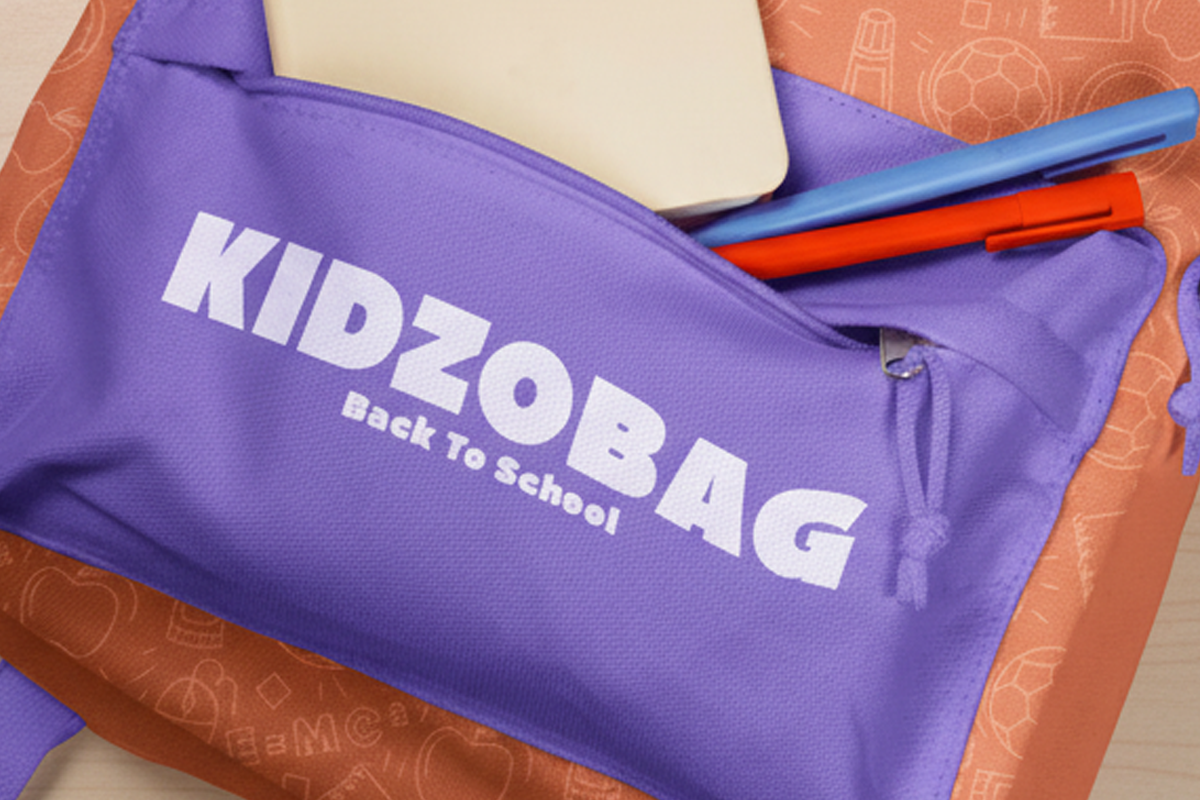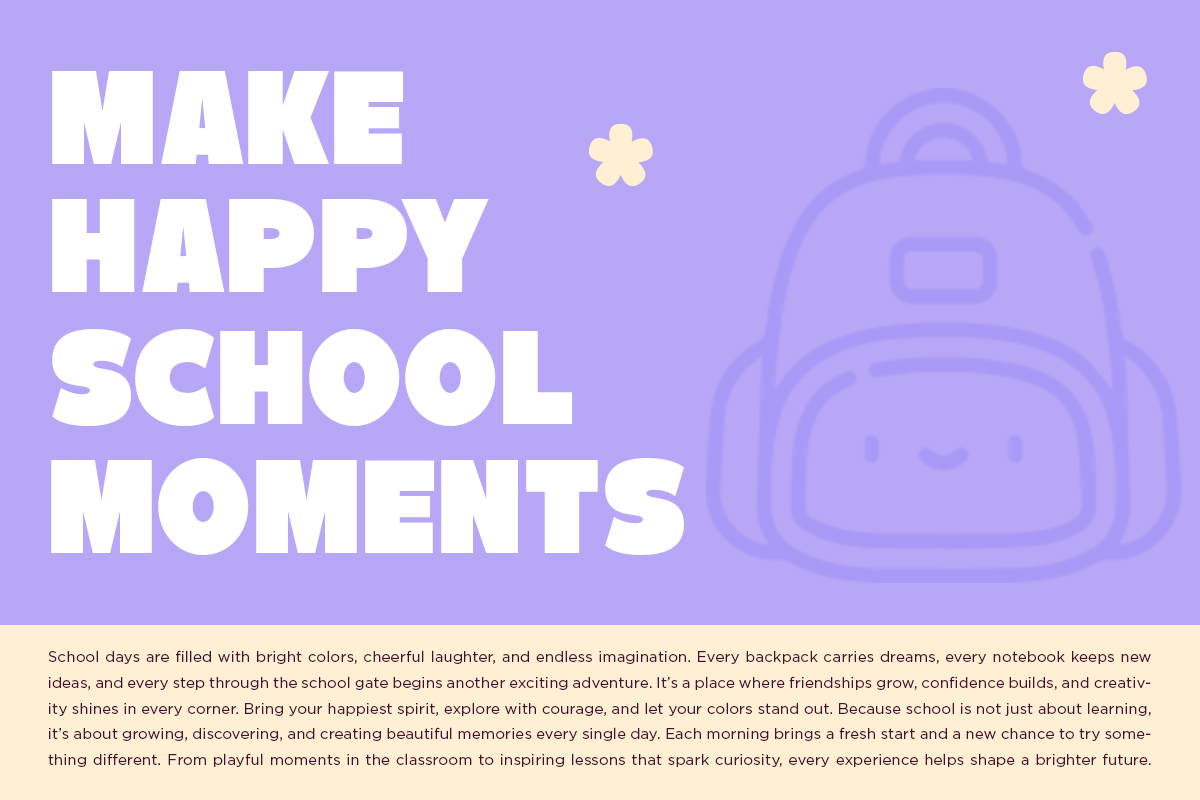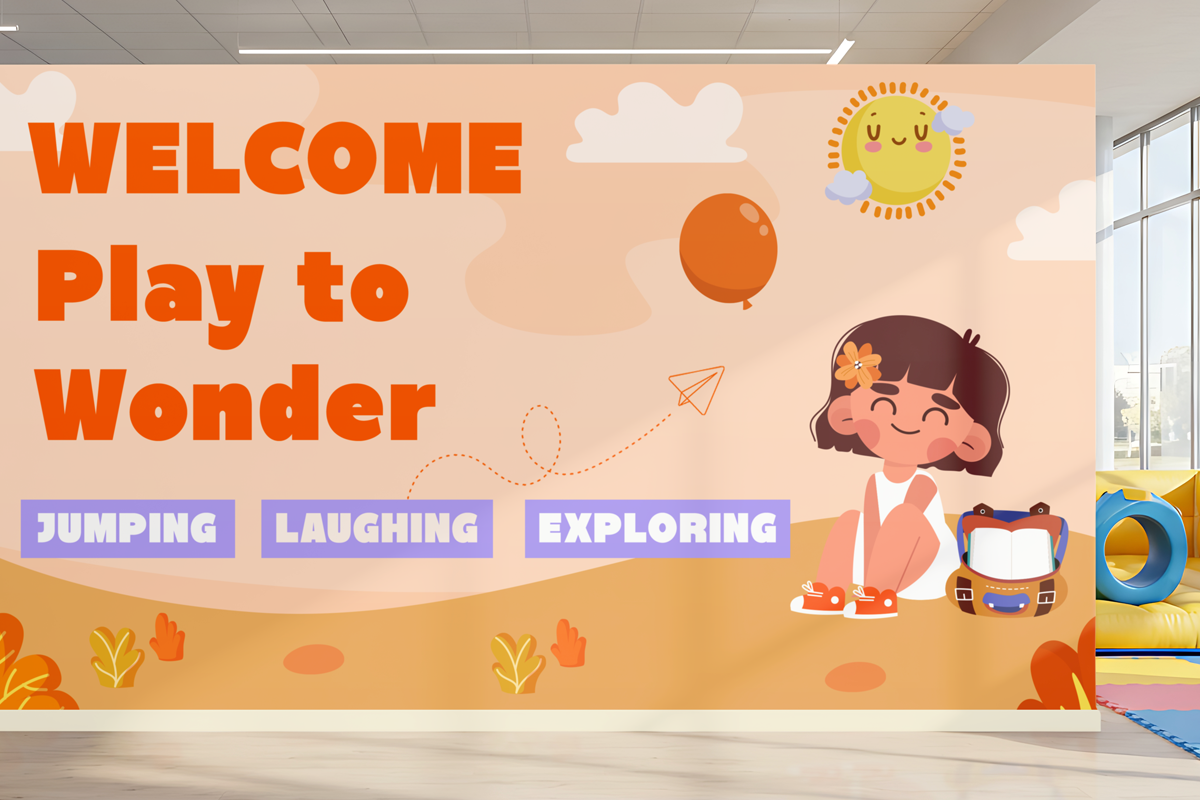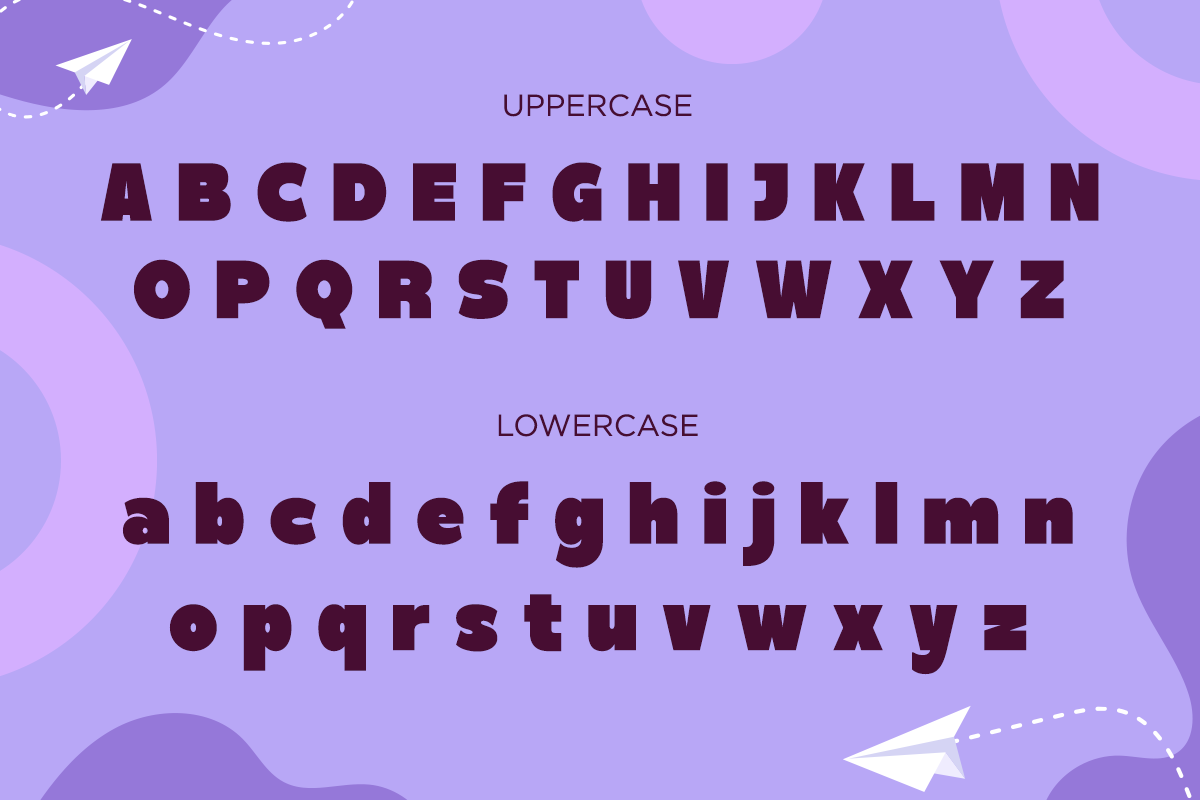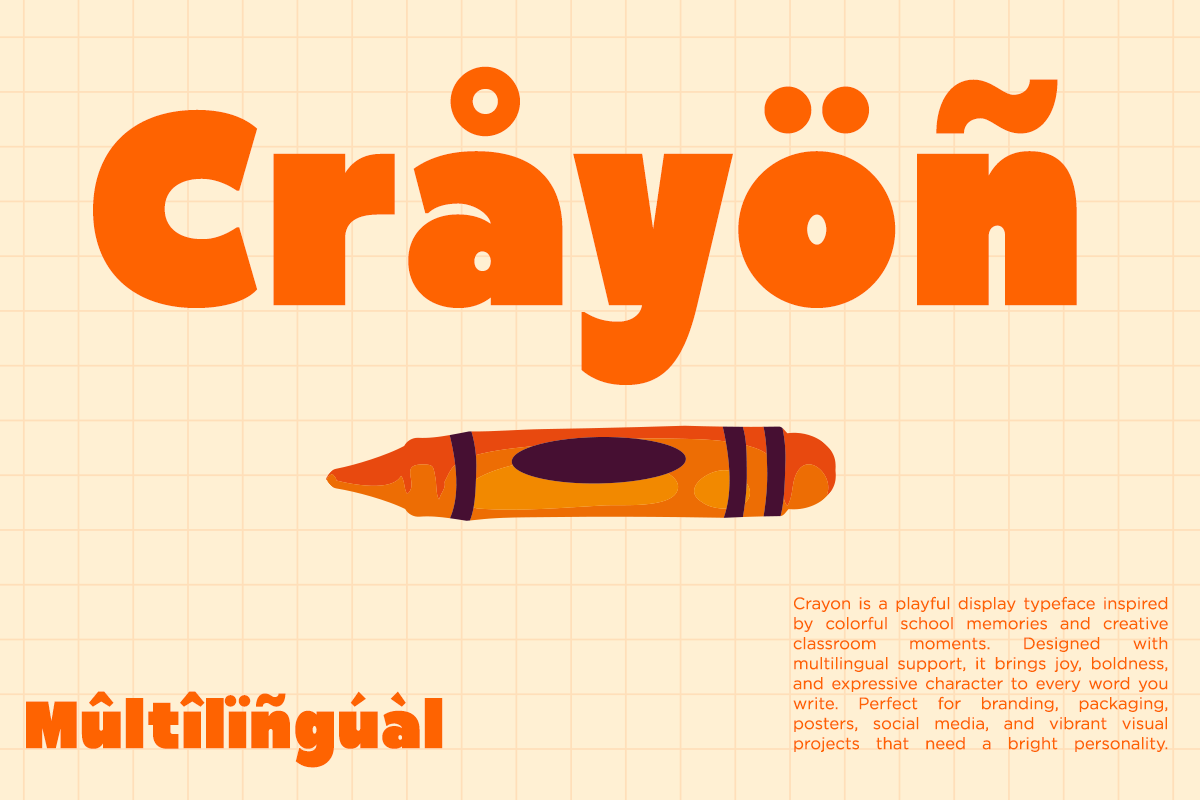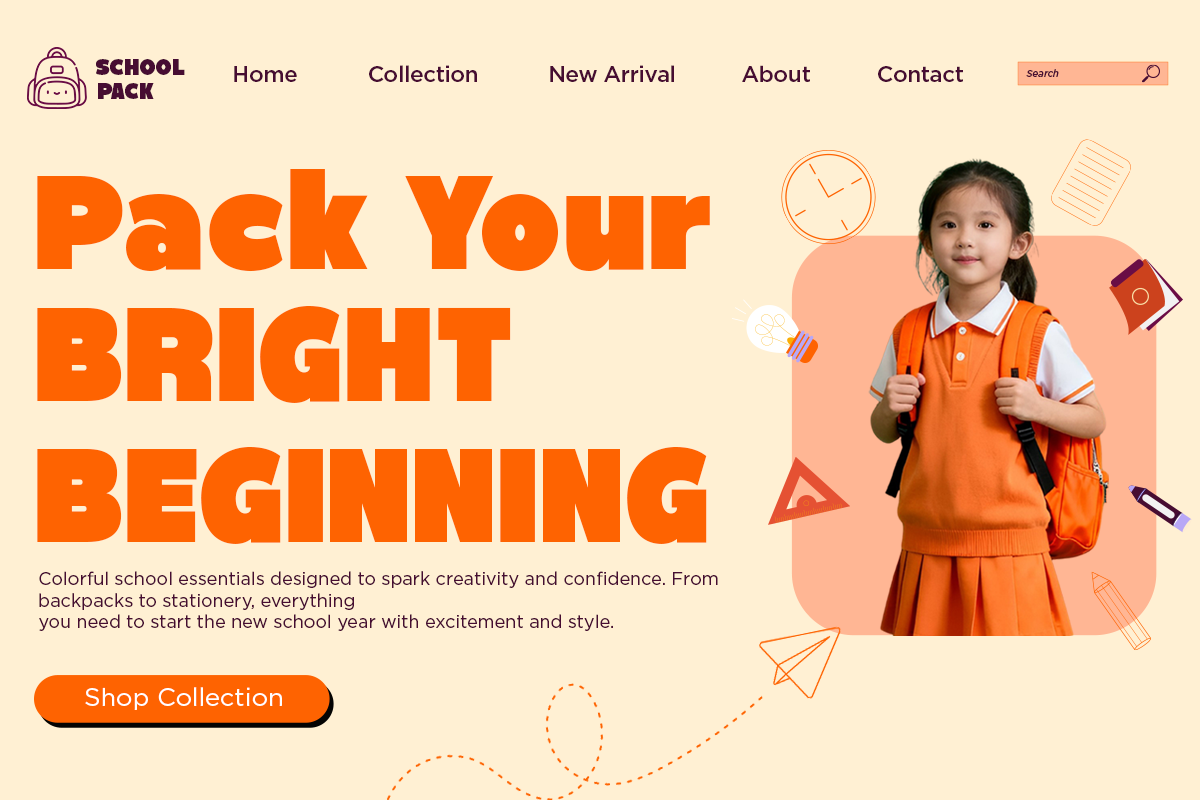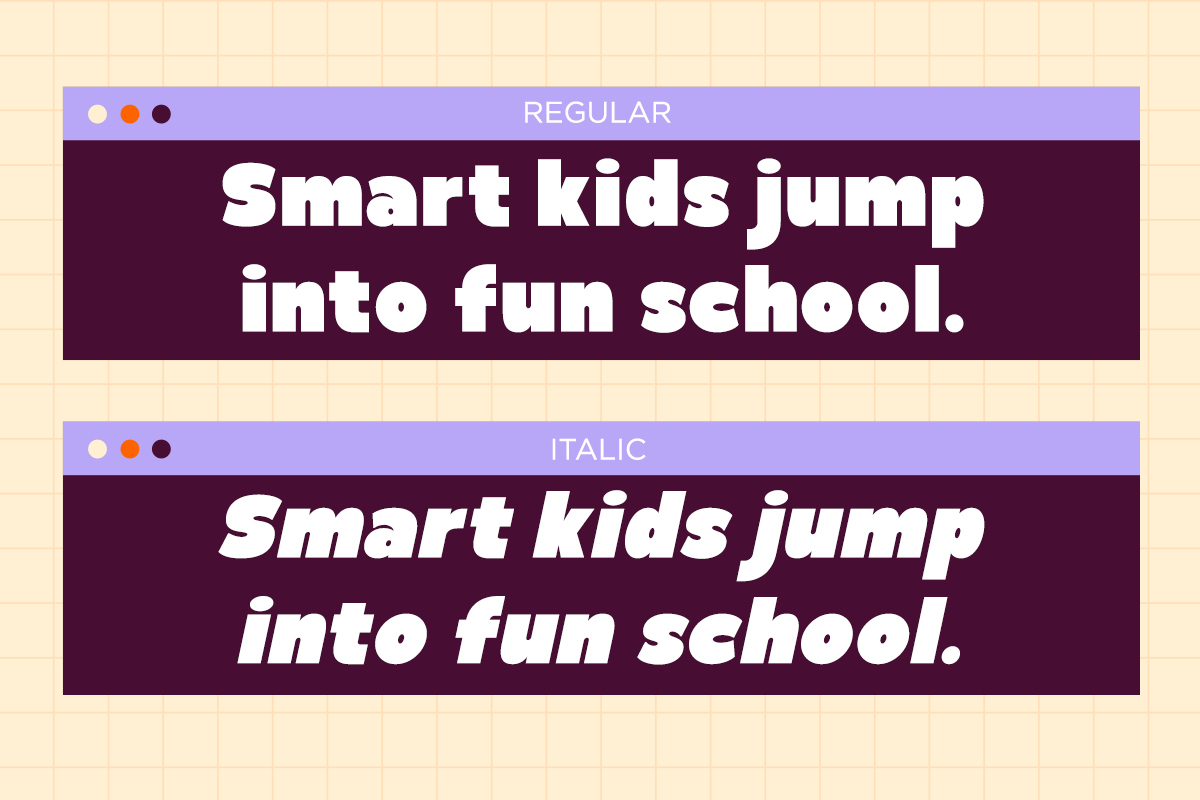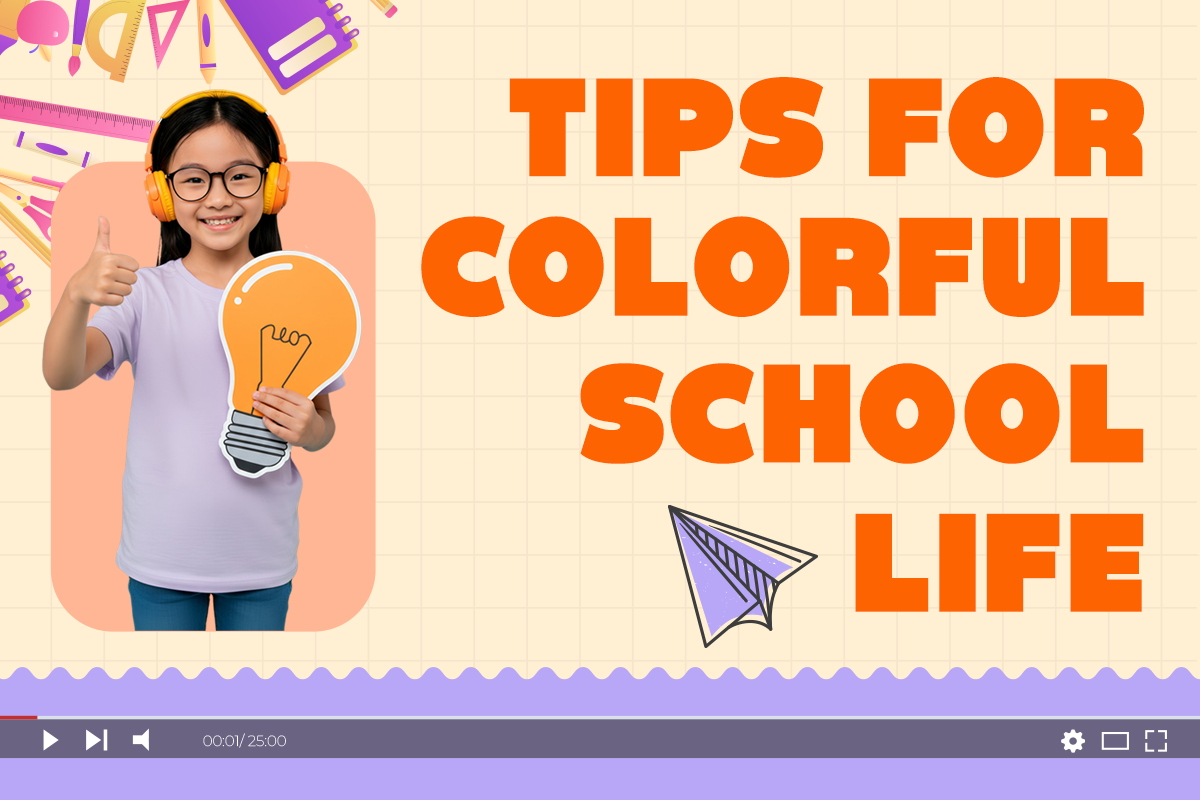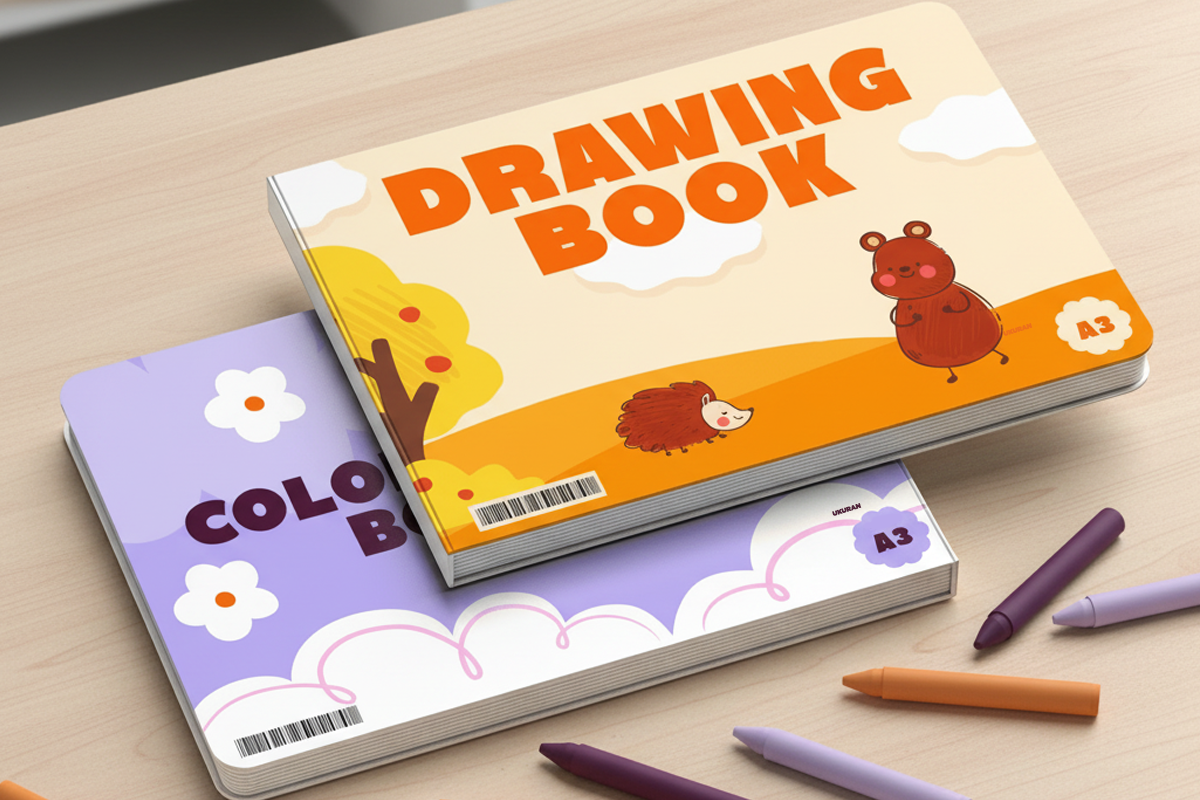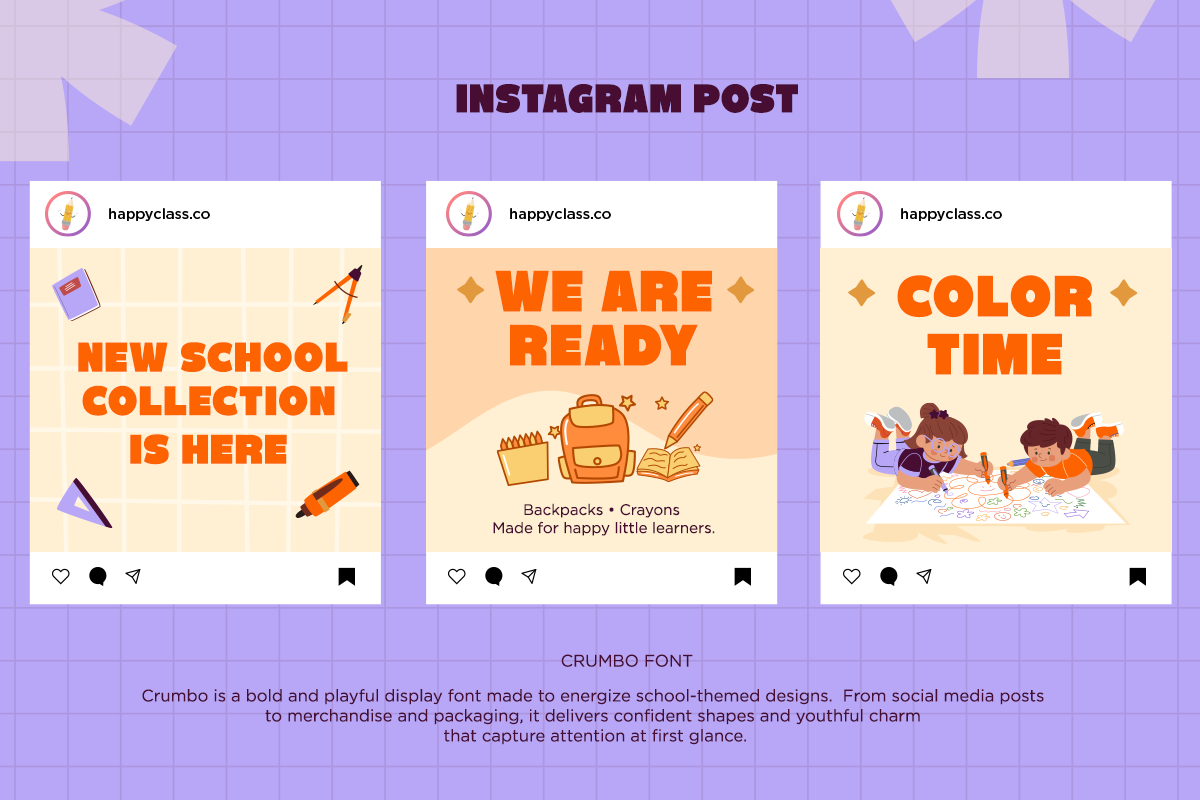
Crumbo - Playful Bold Display
Crumbo is a bold, playful display font designed to bring joy, energy, and character into every design. With its chunky shapes, rounded edges, and friendly personality, Crumbo delivers a fun visual rhythm that instantly attracts attention. This font is perfect for creative projects that demand warmth, playfulness, and high visual impact, while still maintaining strong legibility across layouts.
Perfectly suited for children branding, kids products, educational materials, playful logos, packaging design, posters, book covers, social media graphics, sticker packs, merchandise, and cheerful advertising campaigns. Crumbo adds a lively, friendly tone that makes designs feel approachable, energetic, and emotionally engaging, ideal for brands that want to feel fun, modern, and memorable.
Designed with bold weight and playful proportions, Crumbo helps designers build joyful storytelling, colorful compositions, and expressive typography. Whether for digital content or print, this font gives your visuals a unique playful charm that stands out in crowded creative markets.